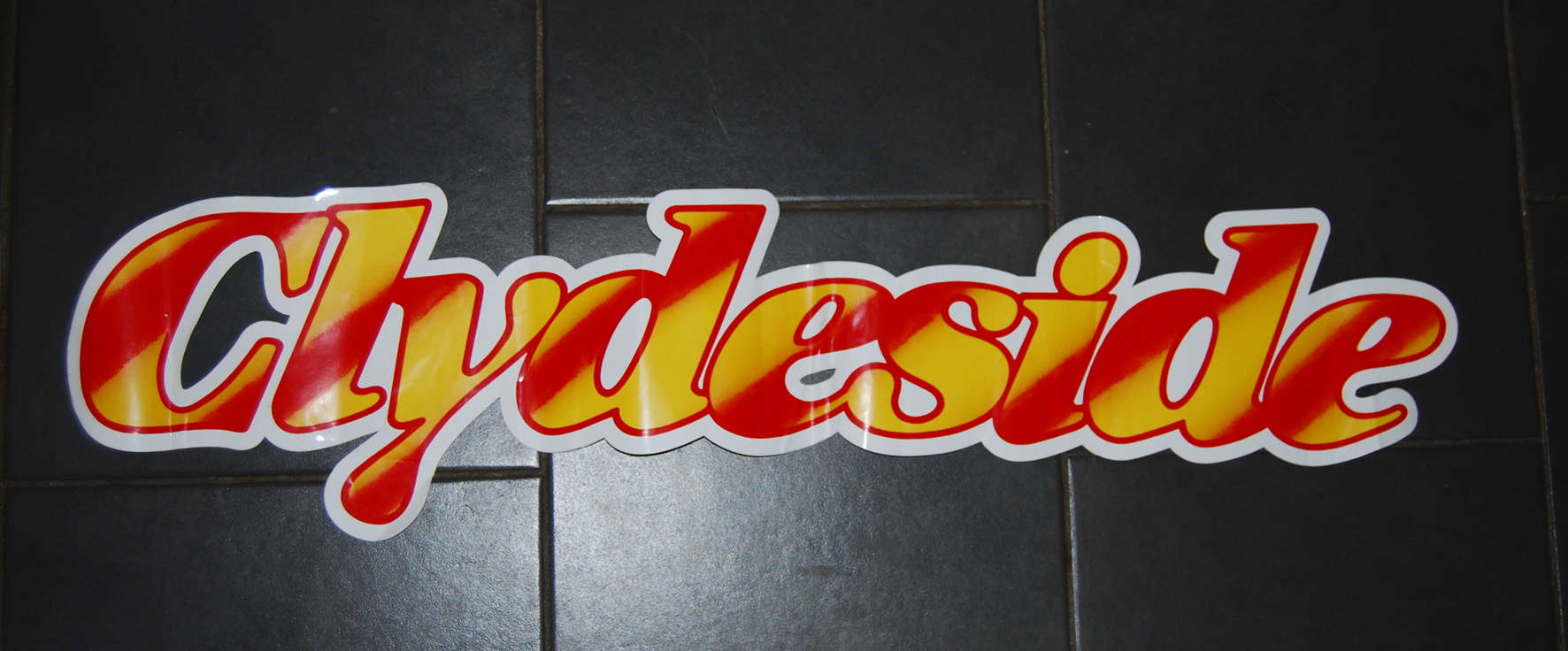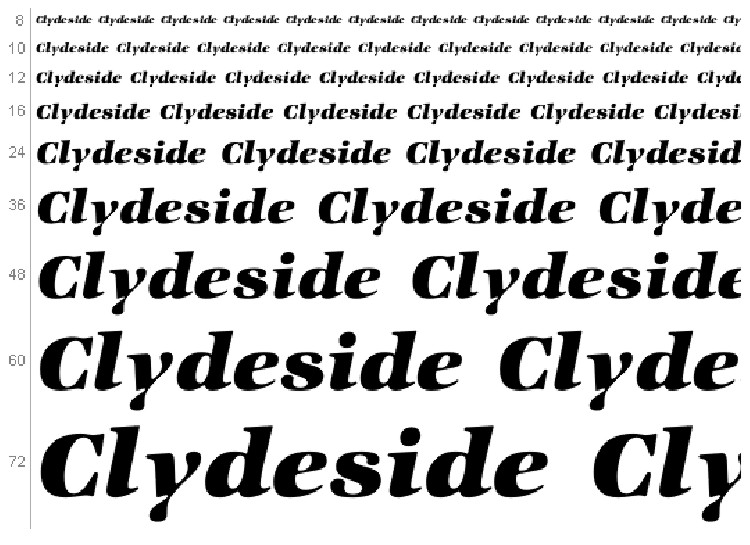
font ID
Posted by Marcella Ross on 12 February 2008 at 12:08and another awkward bus vinyl …… I HATE these jobs. But they pay me so why not. Right now though it’s giving me a headache. I have loads of bits like this to do. 😕
what font cant do the letters when they are joined up.
Think you’ll have to rely on the house experts to id by site.
it’s HIDEOUS! I think the ‘classy’ colour scheme helps though eh ……… 😮
Looked through everything here….I wonder has that ‘y’ been edited as the rest of it looks fairly normal.
no idea Harry……… Identifont didn’t come up with a match either.
You might get away with an italic heavy version of "Tiffany"
I’ve got it if you need anything setting.
oh Mr Cleary – you’re trying to steal The Fontmeister’s crown aren’t you? :lol1: :lol1: :lol1:
That looks good. I think I may have that font lurking somewhere. If I don’t I will give you a shout Jamie 😀 It’s only that one word I need anyway. Thankfully it will only be in solid red, no discreet shading!!!!! 😮 :lol1:THANK YOU! 😀
no, I don’t have that Zapf font 😕 Lots of variations but not that one.
Jamie if you could type out Clydeside for as it is above I would be most oblidged! 😉 -
😳 I actually quite like that font….the ‘y’ is nice…….but the discreet shading?? 😮 😮
Here you go. I’ve not welded the text, so you can shuffle the letters
around to suit. Not exact match, but I think it will be close enough.Cheers,